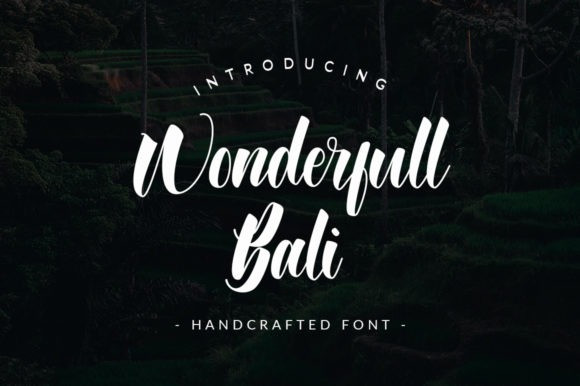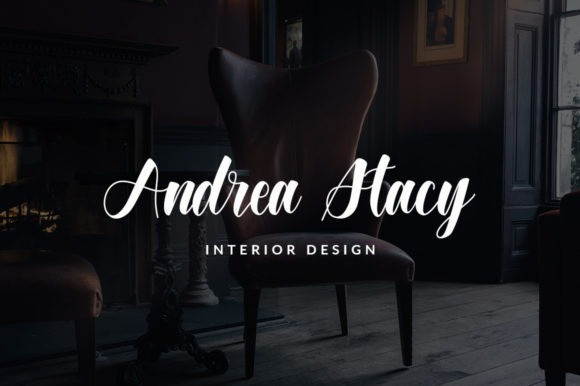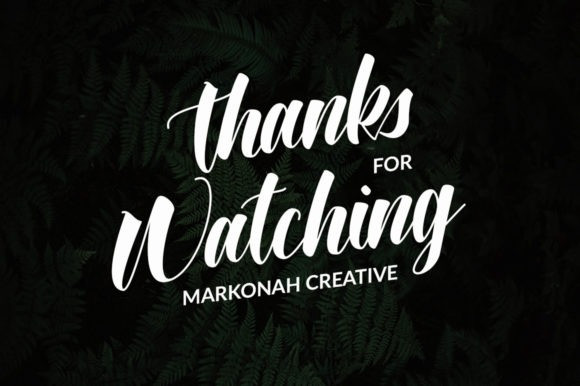
Choco Romance Font Duo
Choco Romance is a beautiful duo styled handwritten font. Simple and easy to use, this font will be very beautiful if you mix it with your various craft designs.